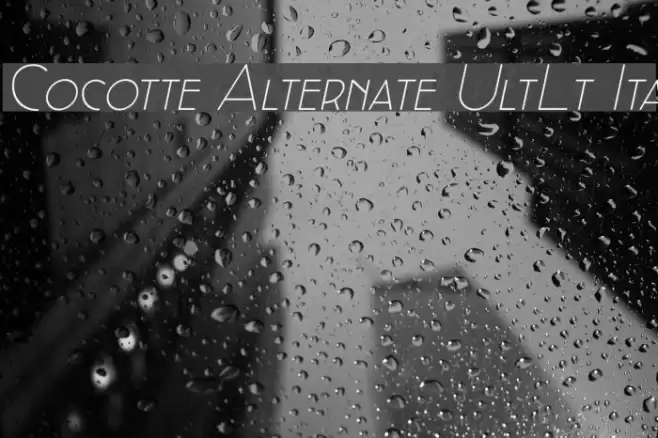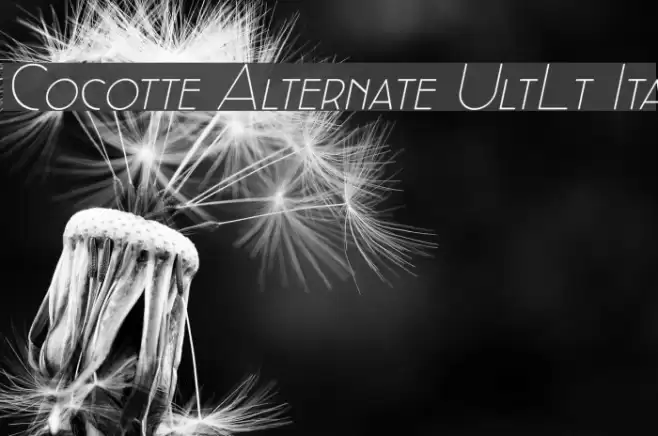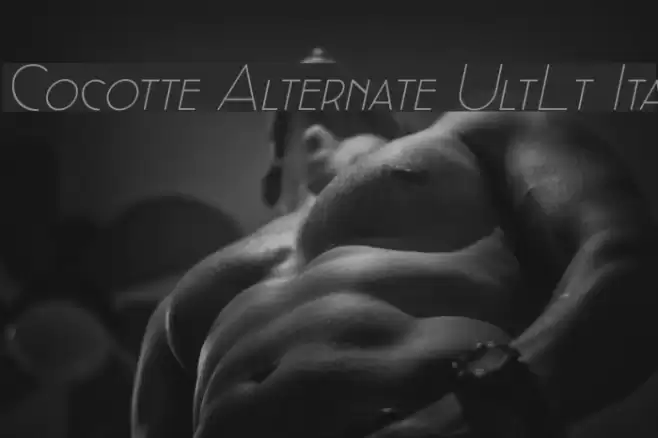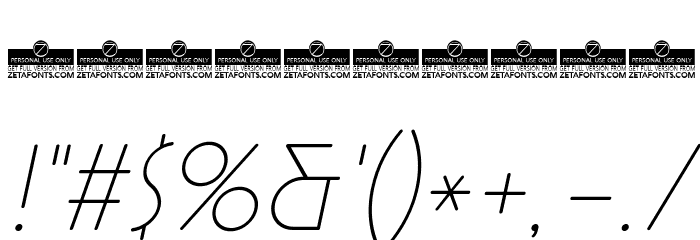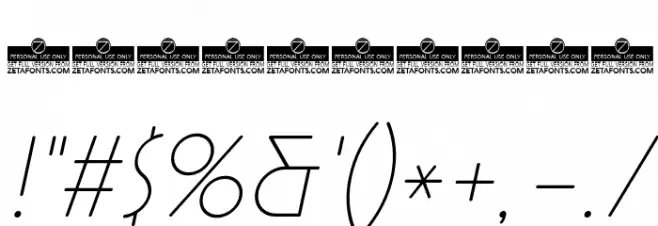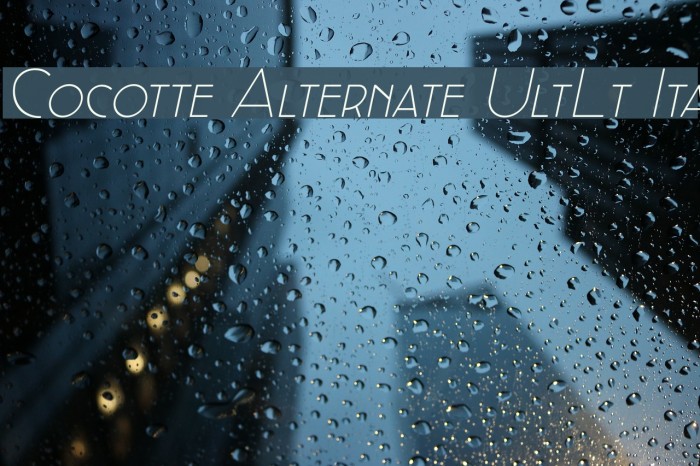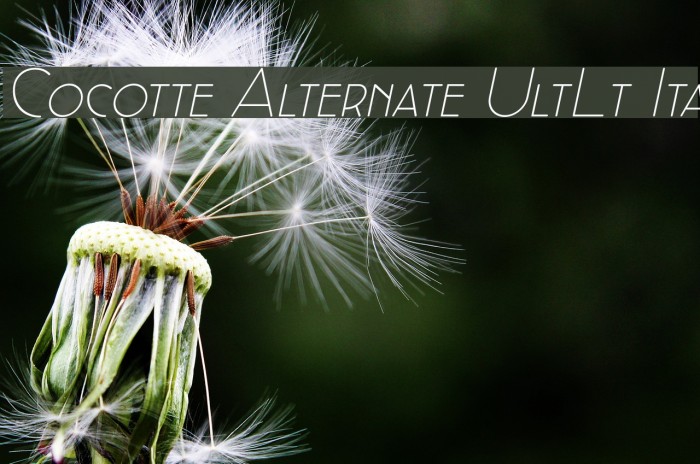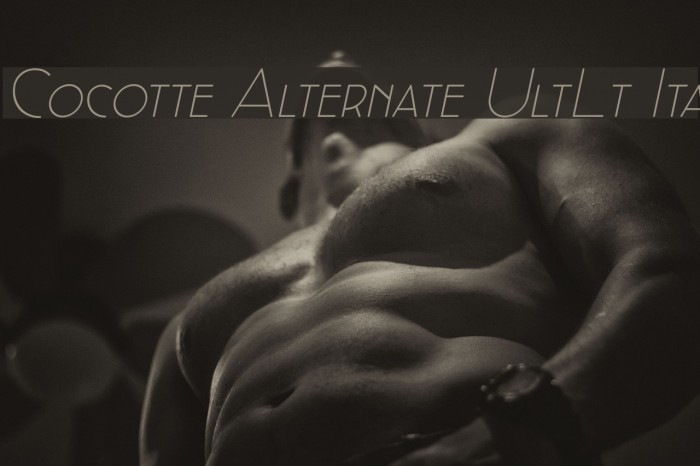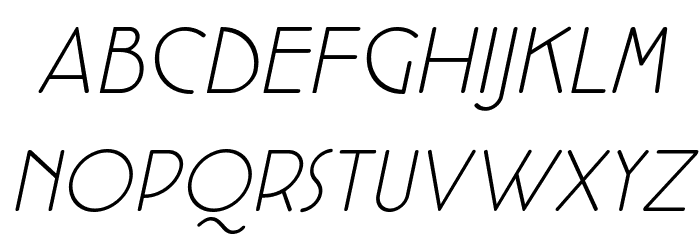
Cocotte Alternate UltLt Ita Font
Cocotte Alternate UltLt Ita Description
This font exhibits a sleek and modern design with a distinct italic slant, giving it a dynamic and forward-moving appearance. The characters are crafted with clean, thin lines that provide a sense of elegance and sophistication. The uppercase letters maintain a consistent height, while the lowercase letters are slightly smaller, creating a balanced and harmonious look. The numerals and special characters are designed to match the overall aesthetic, ensuring uniformity across all glyphs. The font's minimalistic style makes it versatile for various design applications.
A sleek, modern italic font with thin lines and a dynamic appearance from Uncategorized fonts.